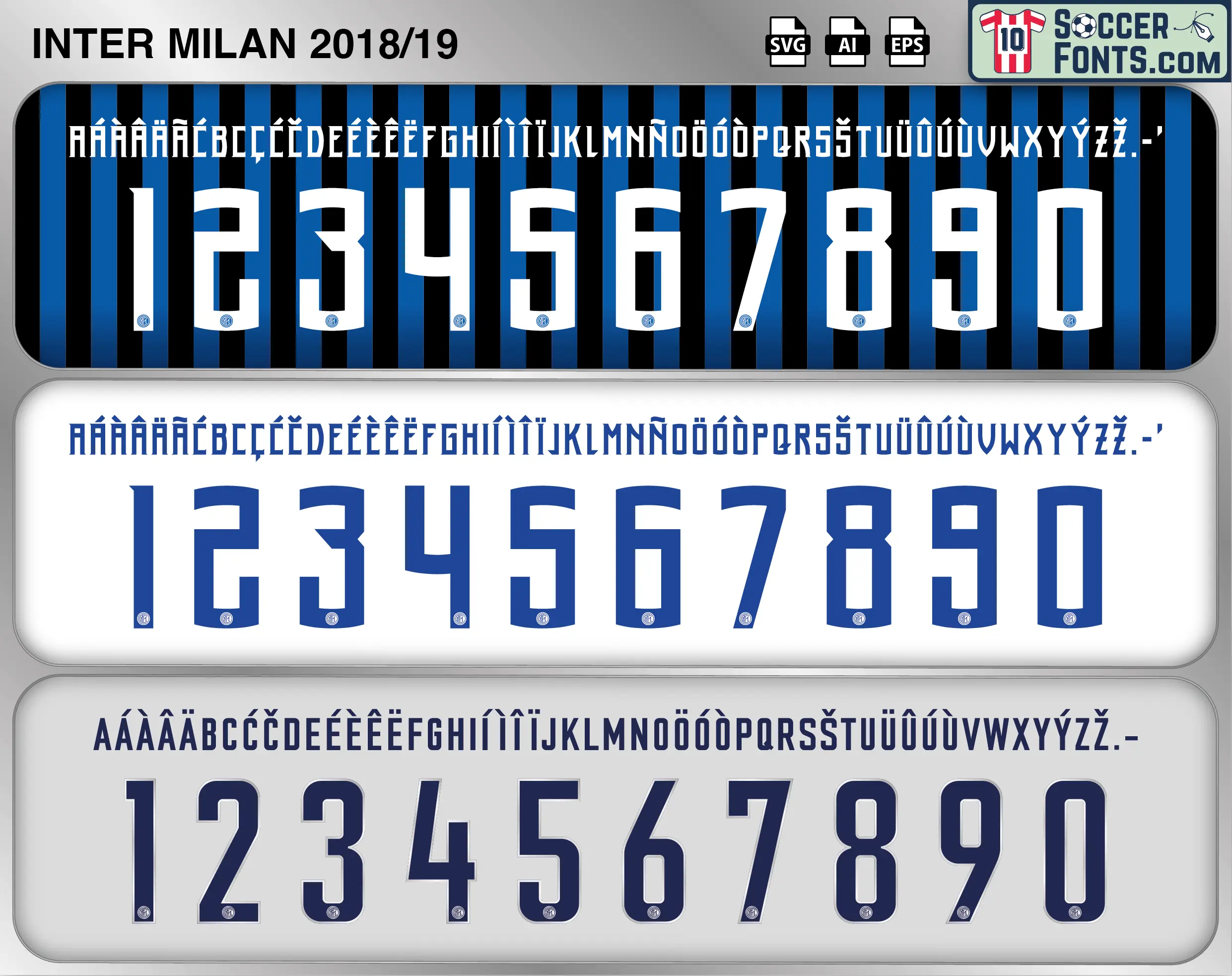
Download Inter Milan 2018-19 font, an editable soccer jersey lettering design in vector format inspired by the Inter Milan kit style used during the 2018-19 football season. This football font artwork is prepared for football shirt recreations, custom jersey projects, football kit mockups and sports graphic design workflows.
The 2018-19 season marked Inter Milan’s return to the UEFA Champions League for the first time since 2011-12, bringing major European nights back to San Siro. Luciano Spalletti’s squad included Mauro Icardi, Ivan Perišić, Marcelo Brozović, Milan Škriniar, Samir Handanović and new arrivals such as Lautaro Martínez and Radja Nainggolan. Inter were drawn into a demanding Champions League group alongside Barcelona, Tottenham Hotspur and PSV Eindhoven, producing memorable matches before finishing third and continuing their European campaign in the UEFA Europa League. The Inter Milan 2018-19 font belongs to this important return to continental competition and a season in which the club continued rebuilding its position among Italy’s leading teams.
Domestic competition produced another tense battle for Champions League qualification. Inter’s campaign included changes in leadership, with Handanović taking over the captaincy during a difficult period surrounding Icardi, while Lautaro increasingly demonstrated the qualities that would make him central to the club’s future. Once again, qualification was decided on the final day, when Inter defeated Empoli 2-1 at San Siro to secure fourth place in Serie A. The Inter Milan 2018-19 font consequently represents a transitional season connecting two different generations of the Nerazzurri. European football had returned, new personalities were emerging, and expectations around the club were beginning to rise again. For supporters and shirt collectors, the Inter Milan 2018-19 font recalls the return of Champions League football, dramatic Serie A moments and the early stages of a squad that would soon challenge seriously for major trophies.